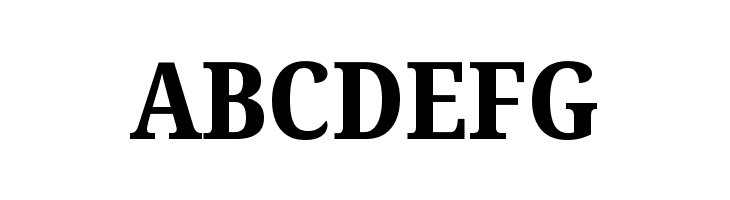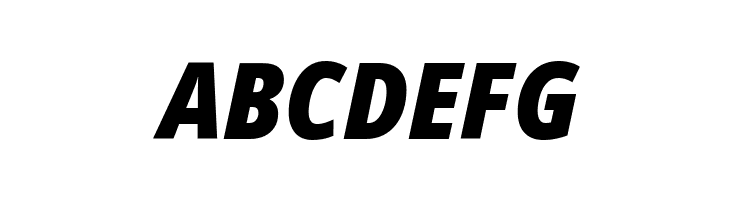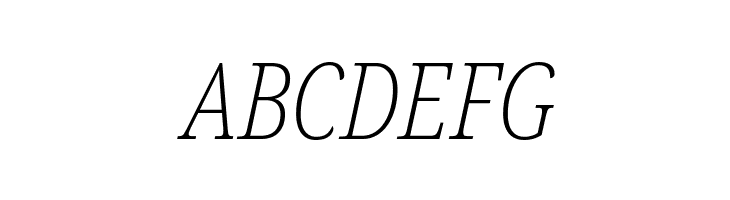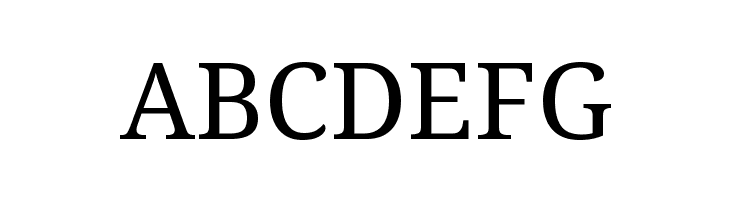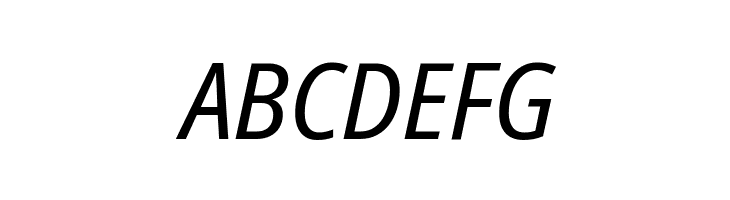
Extra condensed, extra bold Hebrew serif font.
A bold, semi-condensed sans-serif font with a modern and clean design.
A clean, semi-condensed font ideal for digital interfaces.
A semi-condensed, bold font with medium contrast and modern style.
A bold, condensed serif font with a classic and authoritative style.
No valid font glyphs are visible; only placeholder symbols are shown.
A bold, extra-condensed font with a modern and impactful style.
Invalid font sample; only placeholder glyphs are visible.
No valid font glyphs are visible.
A bold, semi-condensed italic font with a modern and dynamic style.
Condensed sans-serif font for Khmer script.
A clean, extra-light sans-serif font ideal for modern and minimalist designs.
Font cannot be evaluated due to missing or unrendered glyphs.
A modern, extra-condensed sans-serif font with a clean and efficient design.
A medium-weight serif font with balanced proportions and moderate contrast.
Condensed extra-light sans-serif font for UI.
Semi-condensed, medium-weight sans-serif with modern, clear forms.
A clean, modern font with a focus on clarity and readability.
A clean, minimalist font with uniform stroke width and excellent readability.
No valid font characters are visible.
A modern, semi-bold, condensed font with excellent readability and versatile applications.
An elegant, extra-light, italic serif font with high contrast and extra-condensed width.
A classic serif font with medium contrast and elegant serifs.
A sleek, extra condensed serif font with a light weight and elegant style.
A geometric and structured font representing the Osmanya script, with bold, uniform characters.